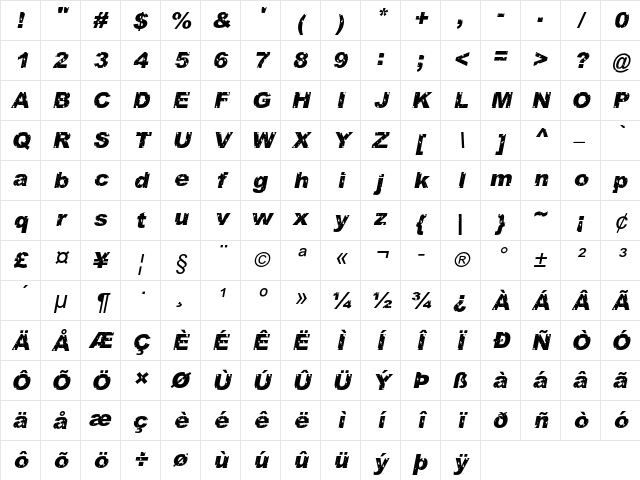
Nostra Italic
Nostra Family
Nostra Italic
Design Context for Nostra
Nostra is a composed and adaptable typeface that performs quietly and consistently across a wide range of design contexts. The slanted form adds forward momentum and visual energy.